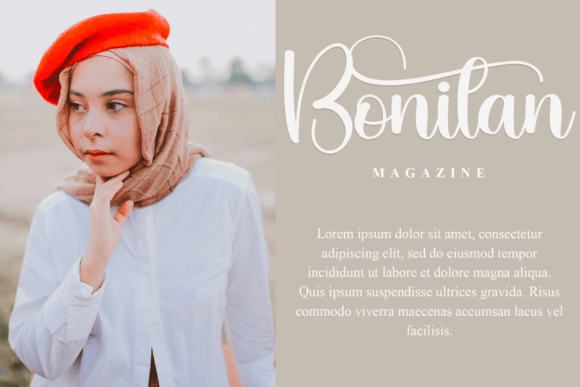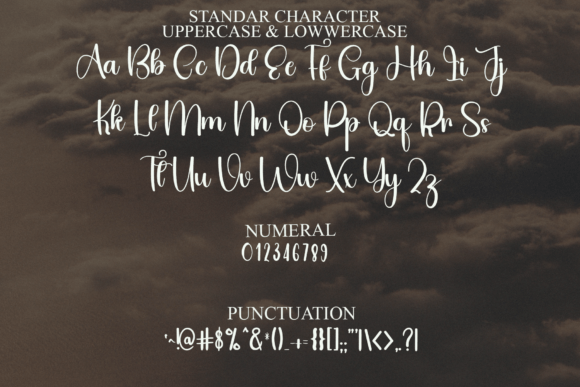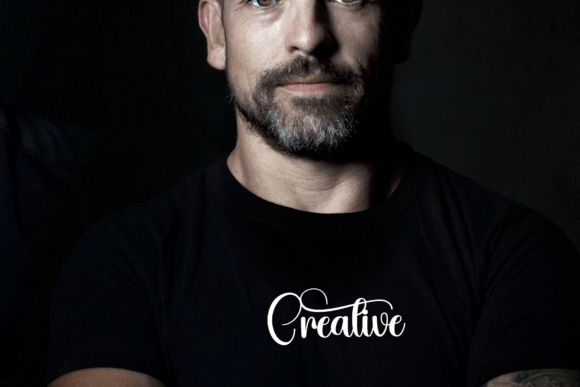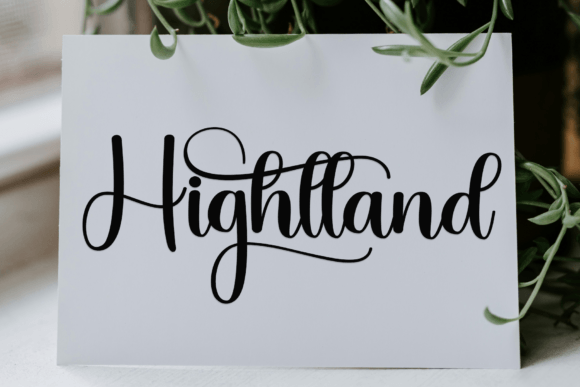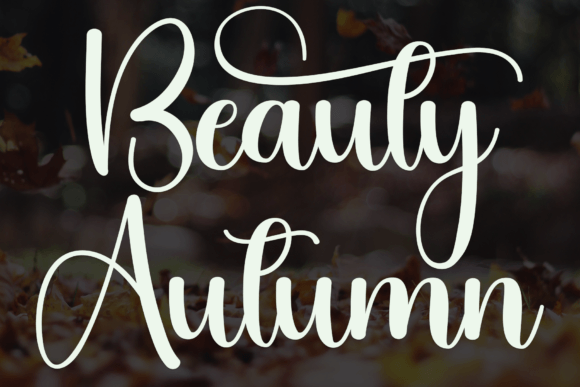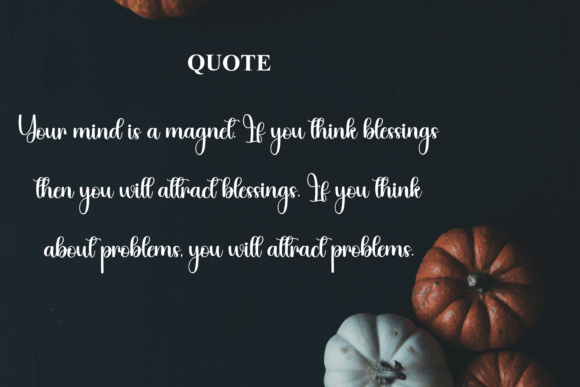
Introducing Autumn Signature Font: Elevate Your Designs with Elegance and Charm
Are you looking for a font that exudes sophistication and warmth? Look no further than Autumn Signature Font, a stylish and captivating typeface that brings a touch of elegance to any design. With its fluid strokes and natural flow, this font is perfect for designers and crafters seeking to add a personal touch to their creations.
The Characteristics of Autumn Signature Font
Autumn Signature Font is a unique and beautiful typeface that boasts a range of characteristics that set it apart from other fonts. Its fluid strokes and natural flow create a captivating, sophisticated look that is perfect for a variety of design applications. The font’s elegant and charming aesthetic makes it ideal for use in:
- Invitations: Whether you’re designing wedding invitations, birthday party invites, or other special occasion cards, Autumn Signature Font adds a touch of warmth and sophistication.
- Branding: Use Autumn Signature Font to create a unique and memorable brand identity that sets your business apart from the competition.
- Social Media: Add a personal touch to your social media posts and stories with Autumn Signature Font, making your content stand out in a crowded online space.
Why Choose Autumn Signature Font?
There are many reasons why designers and crafters choose Autumn Signature Font for their projects. Here are just a few:
- Elegance and Charm: Autumn Signature Font exudes elegance and charm, making it perfect for designs that require a sophisticated aesthetic.
- Versatility: This font is versatile and can be used in a range of design applications, from invitations and branding to social media and more.
- Easy to Read: Despite its elegant and cursive nature, Autumn Signature Font is easy to read, making it perfect for body text and headlines.
- Unique and Creative: With its fluid strokes and natural flow, Autumn Signature Font brings a unique and creative touch to any design.
Tips for Using Autumn Signature Font
To get the most out of Autumn Signature Font, here are a few tips to keep in mind:
- Use it as a Headline Font: Autumn Signature Font is perfect for use as a headline font, adding a touch of elegance and sophistication to your designs.
- Pair it with a Sans-Serif Font: For body text, pair Autumn Signature Font with a sans-serif font to create a beautiful contrast and add visual interest to your designs.
- Experiment with Colors: Autumn Signature Font looks great in a range of colors, from rich and bold to soft and pastel. Experiment with different colors to find the perfect look for your design.
Autumn Signature Font is a beautiful and elegant typeface that brings a touch of sophistication and charm to any design. With its fluid strokes and natural flow, this font is perfect for designers and crafters seeking to add a personal touch to their creations. Whether you’re designing invitations, branding, or social media content, Autumn Signature Font is a versatile and creative choice that’s sure to elevate your designs.